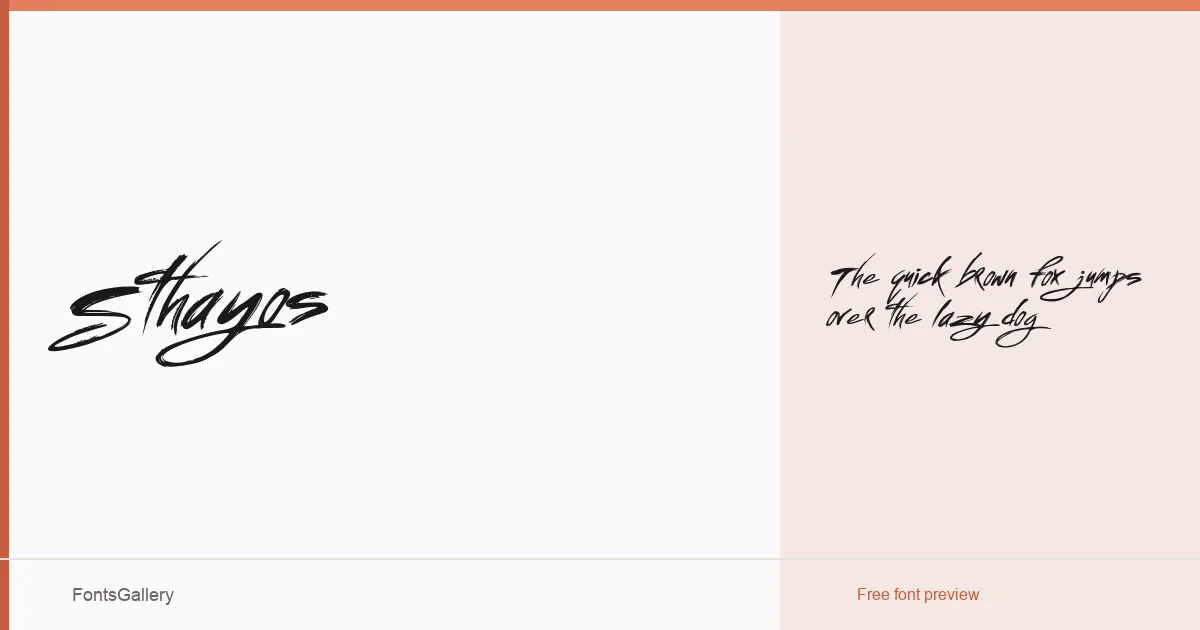
About Sthayos Font
Sthayos is a script typeface crafted by Dhabee Studio©2025 and published through Yumnacreative. It brings together an elegant, modern, and luxurious sensibility in a flowing script form. This typeface is designed to make a bold, sophisticated impression across a wide range of creative projects.
Sthayos features the graceful, flowing letterforms characteristic of refined script typography, lending it an air of elegance and high-end luxury. Its modern sensibility ensures the characters feel fresh and contemporary rather than overly traditional, striking a balance between classic script beauty and current design trends. The fluid strokes and stylish curves make each letterform visually distinctive and expressive.
Sthayos is ideally suited for logos, posters, branding projects, social media graphics, and T-shirt designs where a luxurious and modern aesthetic is desired. Its expressive script style commands attention in headline and display contexts, making it a strong choice for premium brand identities and creative merchandise. For a well-balanced typographic pairing, consider combining Sthayos with Aresink or the clean, neutral lines of Helvetica to create contrast between its flowing script and structured sans-serif letterforms.